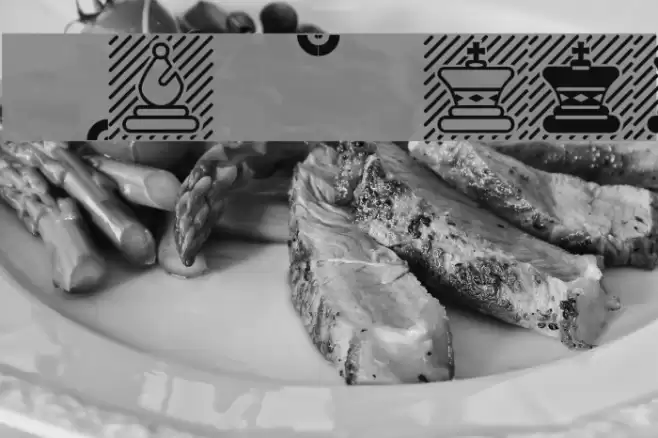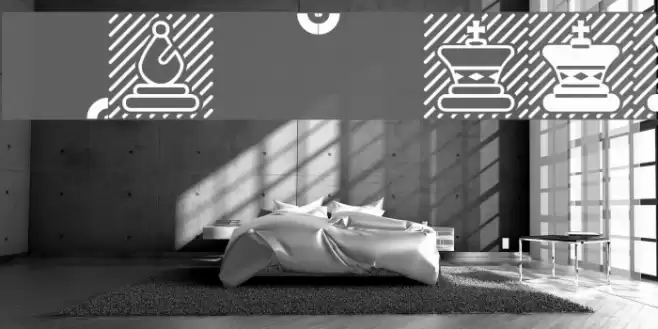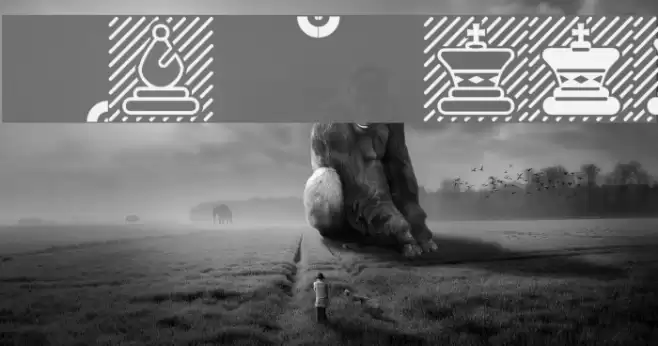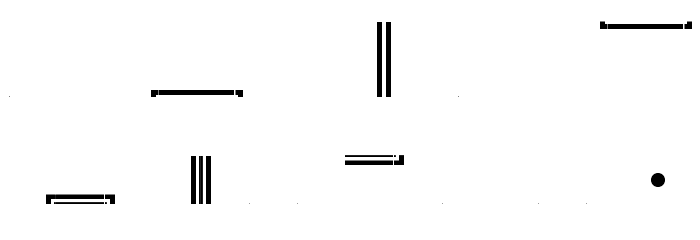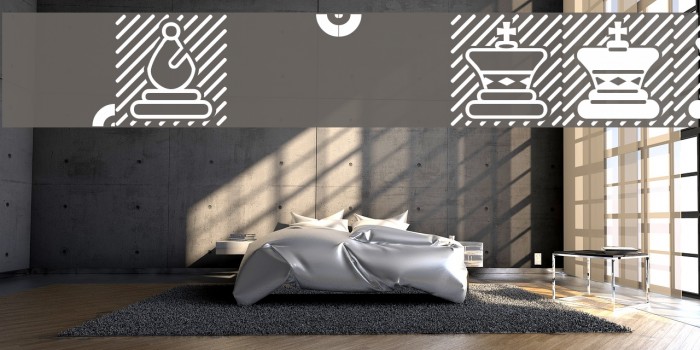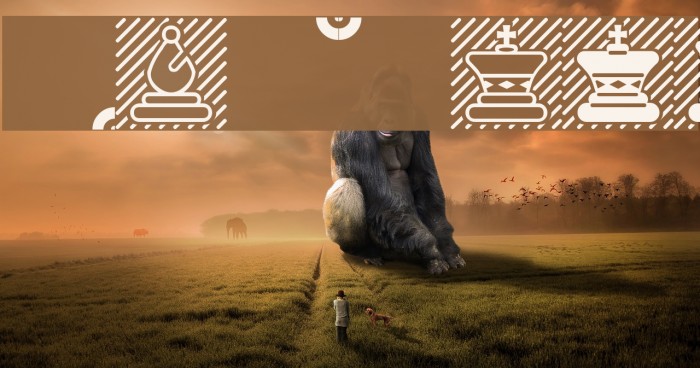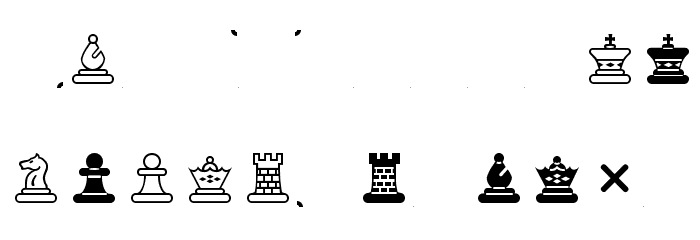
Chess-Maya Font
A decorative font featuring stylized chess piece icons with a modern and playful design.
Decorative font with chess-themed icons from Dingbats fonts.
- Proposed Projects: Board game designs, educational materials, themed posters.
- Use Case: Logos, Posters, Themed graphics